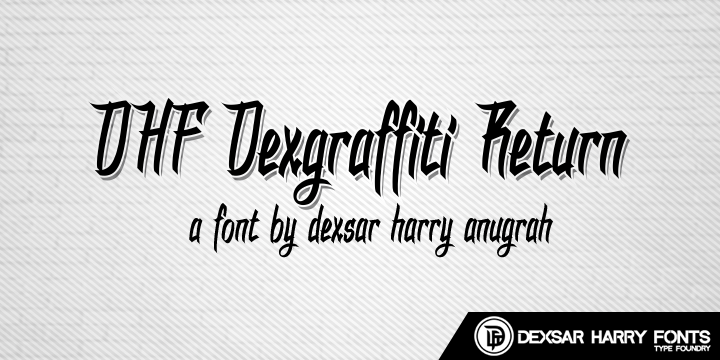
Preview and download DHF Dexgraffiti Return Font. Created by Dexsar Harry Anugrah in Script Graffiti styles with Demo license.
Font name: | DHF Dexgraffiti Return |
Author: | Dexsar Harry Anugrah |
Dexgraffiti Return is Calligraffiti font that come with + 250 Glyph and equipment with opentype feature. Donate me under Download Button if you like this font, Any Donation I Always Appreciate! For COMMERCIAL USE Purchase this font & license → http://majestype.com Like my Facebook Page → http://www.facebook.com/majestype follow our twitter → http://www.twitter.com/majestype Thanks! |